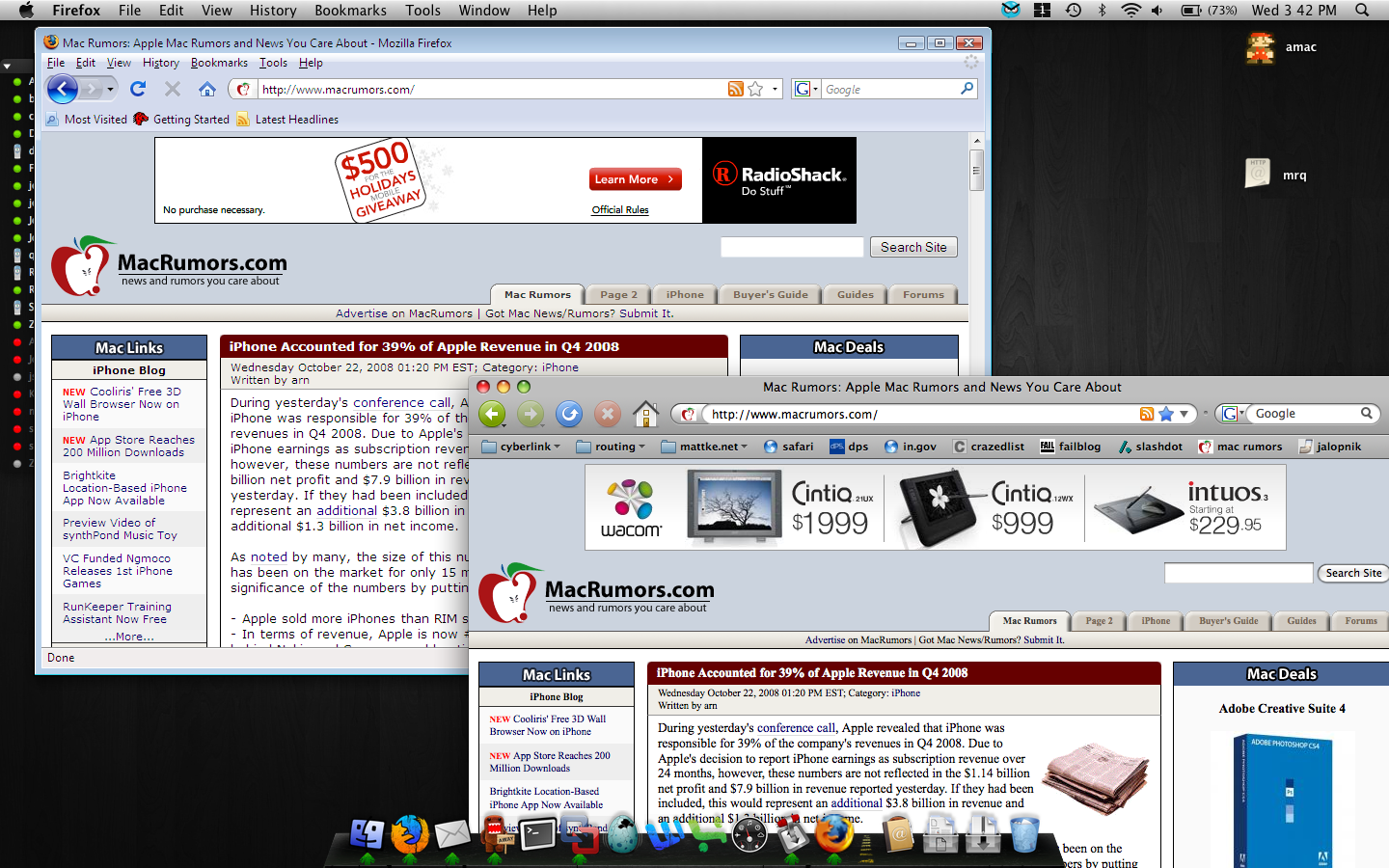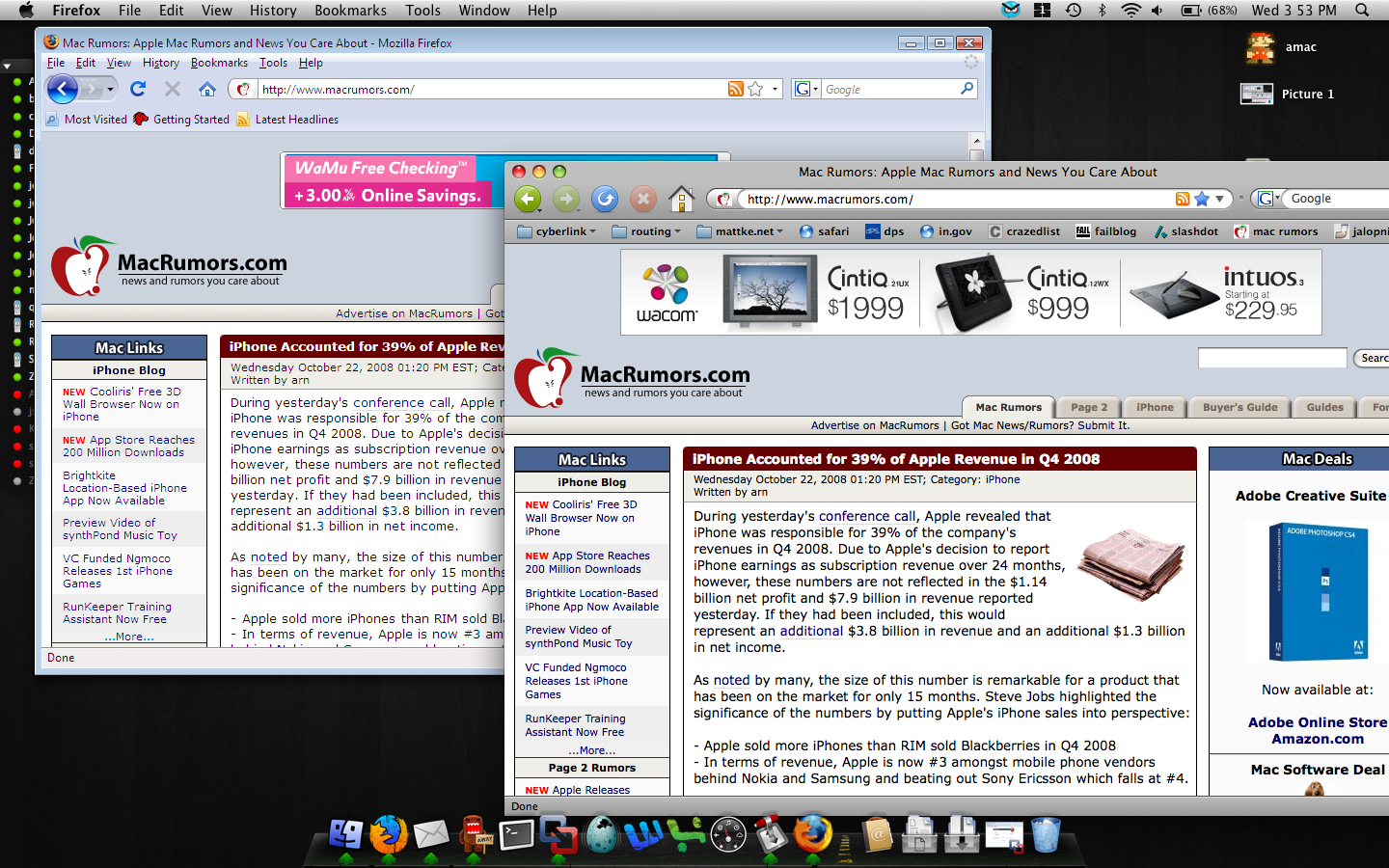
One of the biggest issues I'm having is font related while web browsing. The fonts in the windows version of firefox look so much better than do they in OSX.. Even Safari and Camino seem to have the same issues..
I've included a screen shot to demonstrate... its just a readability issue for me,maybe a bit of nit picking.. but its justified i think !
You can really see it in the titles of the posts here on macrumors, slashdot, and a few other sites....
PS this screen shot is after I tried to fix the issue in firefox by changing fonts ot the ones included with Office for Mac, and told it to use my fonts all the time. I'll attach another screen shot with the browser allowing sites to change fonts.
Here is a screenshot with firefox setup with the new fonts, but now allowing sites to change fonts (this is the default setting for firefox)
The fonts I have setup are as follows...
Proportional - Serif
Serif - Times New Roman
Sans-Serif: Arial
Monospace: Courier New
This is because of Apple and Microsoft differing on how they smooth fonts in their respective operating systems. Microsoft's implementation tries to make text "look good" on the screen, even if doing so means sacrificing the shape of the glyphs that make up the font. Apple's implementation does the exact opposite - it prefers to preserve the shape of the glyphs at all costs. Additionally, Apple uses both anti-aliasing AND sub-pixel rendering to smooth fonts. Microsoft uses sub-pixel rendering only.
Some people prefer Microsoft's system, others Apple's. I happen to be one of those people who finds both systems likable.
Apple generally believes that the goal of the algorithm should be to preserve the design of the typeface as much as possible, even at the cost of a little bit of blurriness.
Microsoft generally believes that the shape of each letter should be hammered into pixel boundaries to prevent blur and improve readability, even at the cost of not being true to the typeface.
So, is there a way to at least make the fonts look less bold, or chunky? I don't exactly have the best vision, and since I spend 12+ hrs a day on a computer, it gets kinda annoying.
I see it as a major problem for me, especially when the text is small. I haven't bought a Mac yet, and beforehand, I'd like to know if there are settings to choose the way you want to render fonts (like there are in other OSes). Maybe there is a patch that fixes the font rendering issue? Other than that, I'm quite interested in purchasing an iMac in the end of the year, those look really nice and polished 🙂
Yes there are settings to adjust the fonts. About "fixing" the font rendering issue, no...there is no issue! 😀
It might just seem that way when you are used to imho, ugly windows rendering. Give it a couple week and you will start to like OSX rendering better. I find i have less eye strain with OSX nowadays, way easier to read web pages and documents. OSX renders fonts like it shows on thee printed paper. Fonts look very nice on this 24" iMac 🙂
It might just seem that way when you are used to imho, ugly windows rendering.
Ok, I still like very much the way fonts are cleanly rendered on Windows with ClearType enabled (default on Vista). Professional designers may find fonts altered, but a normal user like me doesn't perceive it, however, I find shapes cleaner and sharper (less fuzzy).
OSX renders fonts like it shows on thee printed paper.
Ok, I think if this is true, the only reason to this is high resolution (high DPI). I have 96 dpi, and on my current computer with Vista, although the fonts being sharp and clean, it's poor quality, compared to a laser print on quality paper.
Fonts look very nice on this 24" iMac 🙂
Yeah, I think the screen definition is of utmost importance. Could you tell me what DPI you have on your Mac? If I can solve this problem by increasing the DPI on my screen, and if the iMac can have high definition, this could be a tradeoff.
Ok, I still like very much the way fonts are cleanly rendered on Windows with ClearType enabled (default on Vista). Professional designers may find fonts altered, but a normal user like me doesn't perceive it, however, I find shapes cleaner and sharper (less fuzzy).
tonhe: I found a HOW-TO that may help you. Please post a screenshot if you're satisfied with the result. Ideally, for me, though, would be a ClearType font rendering 🙁
To me, the fonts in OSX are just so heavy that they look fuzzy and squashed together.. I find the fonts in windows so much easier to read, browsing pages on the mac honestly gives me a headache at times..
Really, give a couple weeks, your brain will get used to the fonts. 🙂